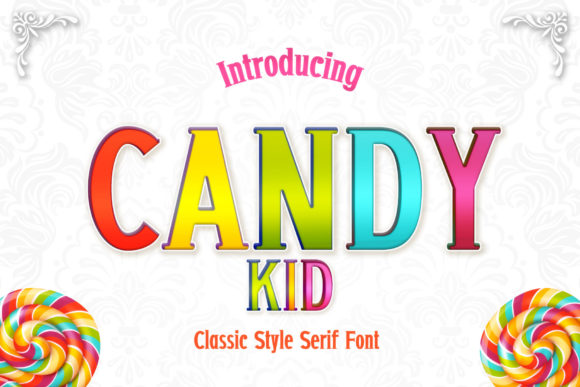
Candy Kid Font: Elevate Your Designs with Elegance
In the world of typography, fonts play a crucial role in making or breaking the visual appeal of a design project. Among the myriad of fonts available, the Candy Kid font stands out as a beacon of elegance and versatility. This comprehensive article delves into the essence of the Candy Kid font, exploring its characteristics, uses, and the impact it can have on your creative projects.
What is Candy Kid Font?
Candy Kid is an elegant serif font that has captured the hearts of designers and typography enthusiasts alike. Its classic yet sophisticated design makes it an ideal choice for a wide range of projects, from editorial designs and branding to packaging and digital content. The font’s serifs add a touch of refinement, making it perfect for projects that demand a high level of elegance.
Key Features of Candy Kid Font
- Elegant Serif Design: The font boasts well-crafted serifs that add a sophisticated touch to any design.
- Versatility: It can be used across a broad spectrum of projects, including but not limited to, editorial designs, branding, and digital content.
- Legibility: The font ensures excellent readability, making it suitable for both headings and body text.
- Unique Character: Each letter in the Candy Kid font has a unique character that contributes to its overall elegance.
How to Use Candy Kid Font in Your Projects
Integrating the Candy Kid font into your projects can significantly enhance their visual appeal. Here are some tips on how to make the most out of this elegant serif font:
Tips for Effective Use
- Pair it with Simplicity: Let the font be the centerpiece by pairing it with simple backgrounds or design elements.
- Experiment with Sizes: Play around with different font sizes to create a hierarchy of information and add depth to your design.
- Consider Line Spacing: Ensure adequate line spacing to improve readability, especially in longer texts.
- Be Mindful of Color: Choose colors that complement the font and enhance its elegance.
The Impact of Candy Kid Font on Design
The addition of the Candy Kid font to your design arsenal can have a profound impact on your creative output. Its elegance and versatility mean that it can elevate projects that might otherwise seem mundane, turning them into visually appealing pieces that capture attention.
Why Candy Kid Font Stands Out
- Emotional Connection: The font can help create an emotional connection with the audience, making your message more impactful.
- Brand Identity: For branding projects, the Candy Kid font can contribute to creating a sophisticated and memorable brand image.
- Digital Presence: In digital content, the font can make your website or blog stand out, enhancing user experience.
In conclusion, the Candy Kid font is a powerful tool in the world of design, offering elegance, versatility, and a unique character that can elevate a wide range of projects. By incorporating this font into your creative workflow, you can add a touch of sophistication and refinement that sets your work apart. Whether you’re working on editorial designs, branding, or digital content, the Candy Kid font is sure to make your projects stand out.
Final Thoughts
The right font can make all the difference in a design project, and the Candy Kid font is certainly a contender for one of the best. Its elegant serif design, versatility, and legibility make it an excellent choice for designers looking to add a touch of class to their work. So, why not give it a try and see how it can transform your designs?